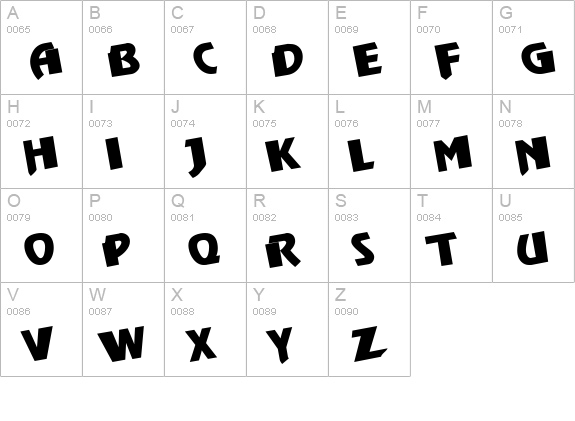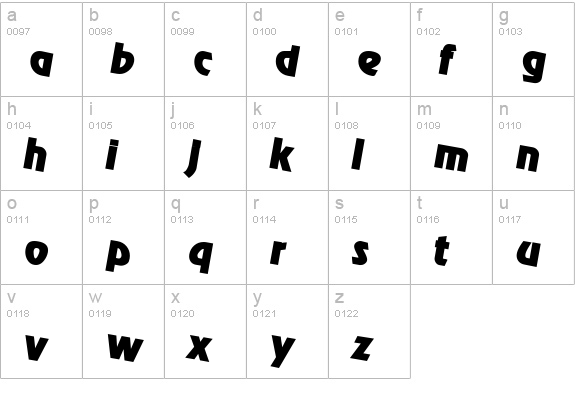
OMEGA Boldo Rocko Font Details
Introducing OMEGA Boldo Rocko font, a bold and robust typeface designed to make a statement. With its strong and impactful presence, OMEGA Boldo Rocko exudes confidence and power in every letterform. The thick strokes and sharp edges of this font give it a modern and edgy look, perfect for catching the eye and commanding attention. What sets OMEGA Boldo Rocko font apart is not only its bold design, but also the fact that it is available for free download. That's right, you can get your hands on this striking font at no cost on FontsMarket.com. Whether you're working on a poster, logo, or any other design project that requires a bold and impactful typeface, OMEGA Boldo Rocko is the perfect choice. Download OMEGA Boldo Rocko font today and add a touch of boldness and strength to your designs. Stand out from the crowd and make a lasting impression with this free and powerful typeface.